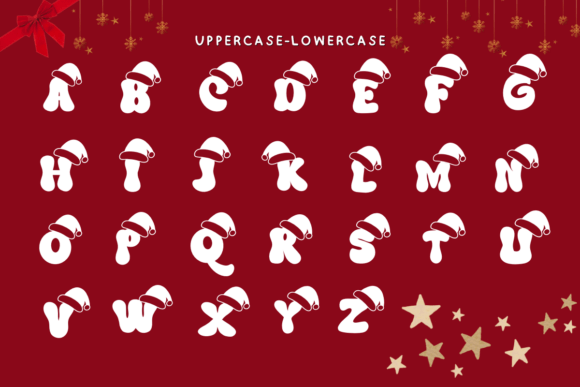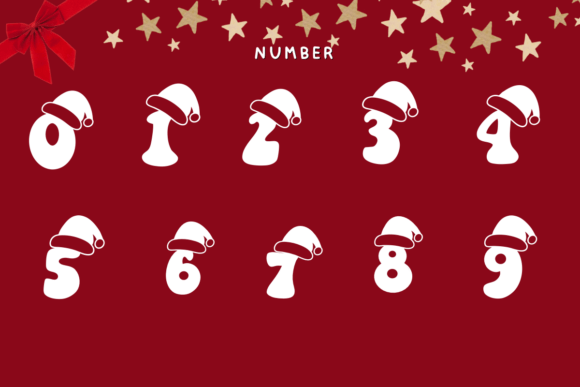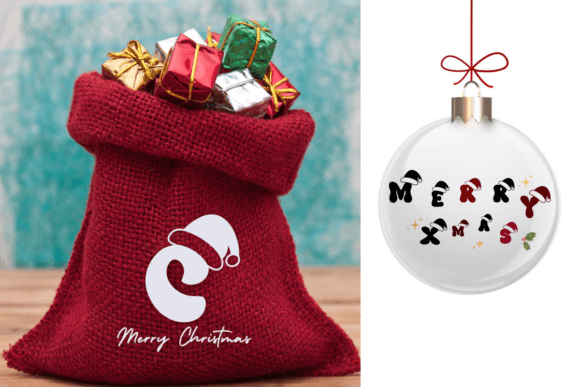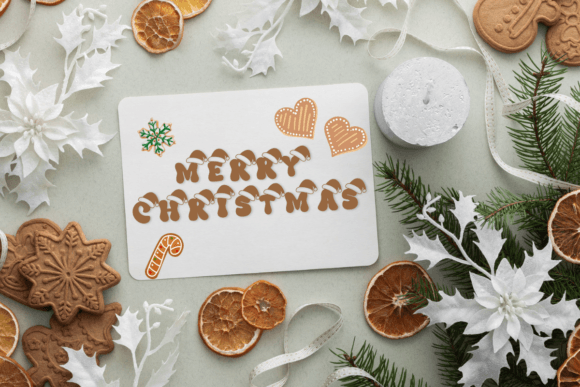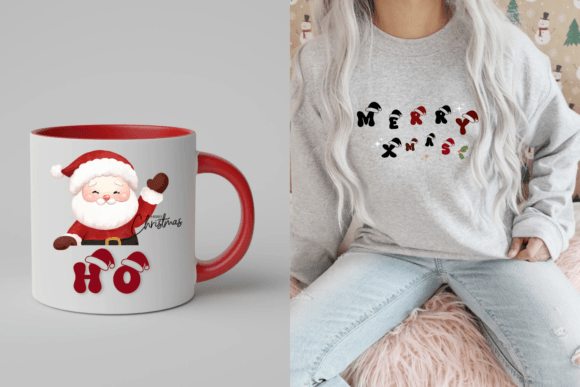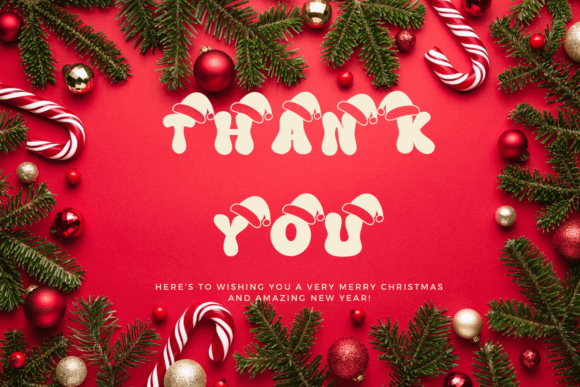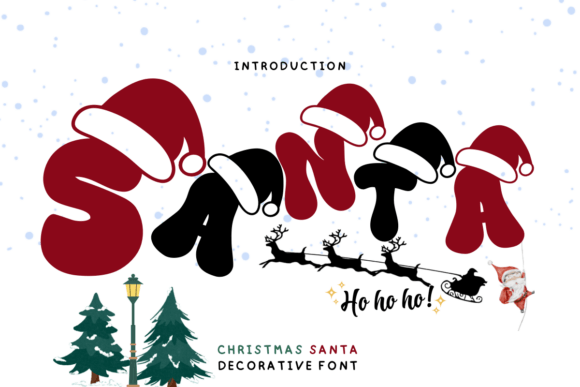
Introducing Christmas Santa Font: The Ultimate Holiday Decorative Font
The Christmas season is a time for joy, giving, and festivity. As designers and crafters, we strive to capture the essence of this magical time of year in our creations. That’s why we’re excited to introduce Christmas Santa Font, a decorative font that embodies the cozy warmth and personality of the holiday season.
A Handwritten Feel that’s Truly Special
Christmas Santa Font is designed to evoke the feeling of a handwritten note, making it perfect for journaling, note-taking, and holiday greeting cards. Its unique, decorative strokes bring a sense of charm and personality to any project, making it truly special. Whether you’re a designer, crafter, or simply someone who loves the holiday season, Christmas Santa Font is sure to become your go-to font for all your holiday projects.
Bring Your Holiday Greeting Cards to Life
With Christmas Santa Font, your holiday greeting cards will come to life with charm and personality. Imagine being able to create beautiful, one-of-a-kind cards that capture the essence of the season. Whether you’re making cards for friends, family, or clients, Christmas Santa Font is the perfect choice. Its decorative strokes and handwritten feel will add a touch of warmth and personality to your cards, making them truly special.
Christmas Santa Font is perfect for designers and crafters who want to add a touch of holiday magic to their projects. Whether you’re creating holiday-themed stationery, gift tags, or scrapbooking pages, this font is sure to inspire. Its unique, decorative strokes will add a touch of personality to any project, making it truly special.
Key Features of Christmas Santa Font
- Decorative strokes: Christmas Santa Font features decorative strokes that add a touch of holiday magic to any project.
- Handwritten feel: This font is designed to evoke the feeling of a handwritten note, making it perfect for journaling and note-taking.
- Holiday charm: Christmas Santa Font captures the essence of the holiday season, making it perfect for holiday greeting cards and projects.
- Unique personality: This font has a unique personality that will add a touch of charm and personality to any project.
Tips for Using Christmas Santa Font
- Use it for holiday greeting cards: Christmas Santa Font is perfect for creating unique and personalized holiday greeting cards.
- Add it to your journaling: This font is great for journaling and note-taking, adding a touch of holiday magic to your entries.
- Mix and match with other fonts: Experiment with pairing Christmas Santa Font with other fonts to create unique and interesting combinations.
- Use it for holiday-themed stationery: Christmas Santa Font is perfect for creating holiday-themed stationery, gift tags, and scrapbooking pages.
In conclusion, Christmas Santa Font is the ultimate holiday decorative font for designers and crafters. Its unique, decorative strokes and handwritten feel make it perfect for capturing the essence of the holiday season. Whether you’re creating holiday greeting cards, journaling, or making holiday-themed stationery, Christmas Santa Font is sure to become your go-to font. So download it today and start creating holiday projects that are truly special!